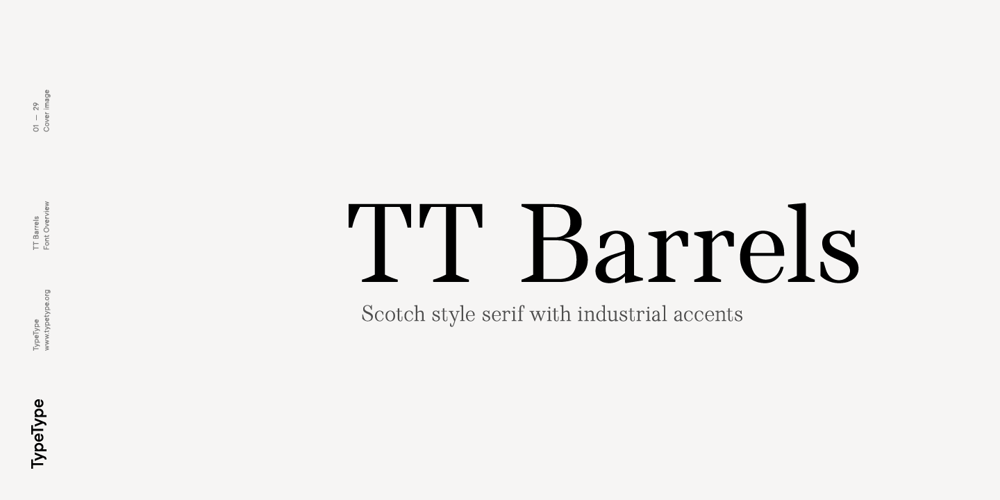
TT Barrels
TT Barrels font
TT Barrels Font Family was designed by Nadezhda Polomoshnova, Marina Khodak, Inessa Mitrozor, TypeType Team and published by TypeType. TT Barrels contains 12 styles and family package options. TT Barrels useful links:Specimen PDF | Graphic presentation | Customization optionsTT Barrels is an elegant scotch style modern serif with strong industrial accents in its design. The TT Barrels project was born from a fictional technical assignment in which we tried to combine the technological effectiveness of industrial production used in engineering and the restrictions imposed by it with a beautiful scotch style serif. We decided to create a typeface that could be used to press letters on the metal body of a car, all while the typeface being elegant, and possessing sophisticated details that are typical of the classic text fonts of the late 19th and early 20th centuries.In the process of designing and sketching, we reconsidered certain aspects and abandoned some of the requirements imposed by the technology of metal letter pressing, for example, from the extensive application of visual compensators, the decreased strokes contrast, and the hyperdeformation of individual letter elements to preserve a more pronounced rhythm of these elements. First of all, we wanted both to maintain the ease of reading for the entire text array and follow the rules of aesthetics of each letter in the typeface, while still leaving some influence of industrialism. In the end, this influence is best manifested in serifs, which are quite massive and have a technologically exaggerated wedge shape.TT Barrels consists of 12 fonts: Light, Regular, DemiBold, Bold, Extrabold, Black and the corresponding Italics. Each outline consists of more than 750 glyphs and includes small capitals, ligatures (for Latin and Cyrillic alphabets), stylistic alternates, old-style figures, and many other useful features. FOLLOW US:Instagram | Facebook | WebsiteTT Barrels OpenType features: ordn, c2sc, smcp, case, frac, sinf, sups, numr, dnom, tnum, onum, lnum, pnum, dlig, liga, calt, salt (ss01).TT Barrels language support: Acehnese, Afar, Albanian, Alsatian, Aragonese, Arumanian, Asu, Aymara, Banjar, Basque, Belarusian (cyr), Bemba, Bena, Betawi, Bislama, Boholano, Bosnian (cyr), Bosnian (lat), Breton, Bulgarian (cyr), Cebuano, Chamorro, Chiga, Colognian, Cornish, Corsican, Cree, Croatian, Czech, Danish, Embu, English, Erzya, Estonian, Faroese, Fijian, Filipino, Finnish, French, Friulian, Gaelic, Gagauz (lat), Galician, German, Gusii, Haitian Creole, Hawaiian, Hiri Motu, Hungarian, Icelandic, Ilocano, Indonesian, Innu-aimun, Interlingua, Irish, Italian, Javanese, Judaeo-Spanish, Kalenjin, Karachay-Balkar (lat), Karaim (lat), Karakalpak (lat), Kashubian, Khasi, Khvarshi, Kinyarwanda, Kirundi, Kongo, Kumyk, Kurdish (lat), Ladin, Latvian, Laz, Leonese, Lithuanian, Luganda, Luo, Luxembourgish, Luyia, Macedonian, Machame, Makhuwa-Meetto, Makonde, Malay, Manx, Maori, Mauritian Creole, Minangkabau, Moldavian (lat), Montenegrin (lat), Mordvin-moksha, Morisyen, Nahuatl, Nauruan, Ndebele, Nias, Nogai, Norwegian, Nyankole, Occitan, Oromo, Palauan, Polish, Portuguese, Quechua, Rheto-Romance, Rohingya, Romanian, Romansh, Rombo, Rundi, Russian, Rusyn, Rwa, Salar, Samburu, Samoan, Sango, Sangu, Scots, Sena, Serbian (cyr), Serbian (lat), Seychellois Creole, Shambala, Shona, Slovak, Slovenian, Soga, Somali, Sorbian, Sotho, Spanish, Sundanese, Swahili, Swazi, Swedish, Swiss German, Tagalog, Tahitian, Taita, Tatar, Tetum, Tok Pisin, Tongan, Tsonga, Tswana, Turkish, Turkmen (lat), Ukrainian, Uyghur, Vepsian, Volapük, Võro, Vunjo, Xhosa, Zaza, Zulu.